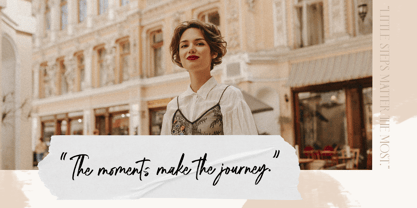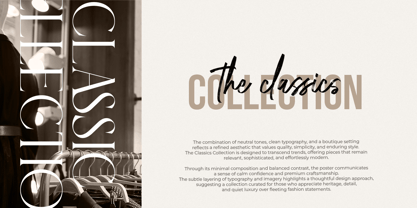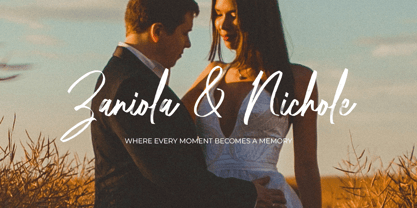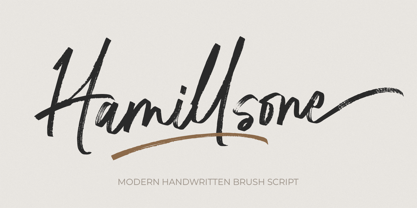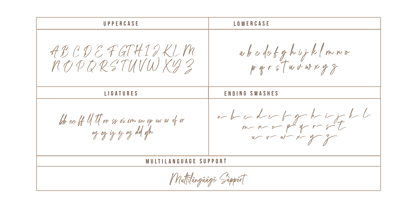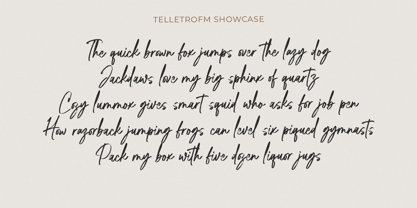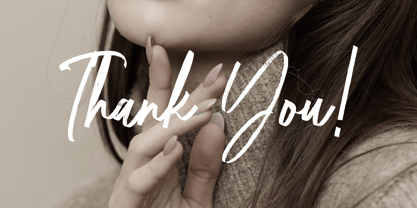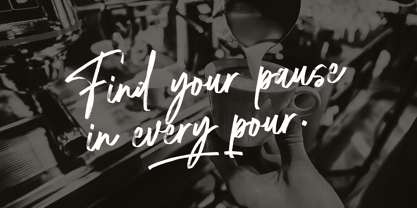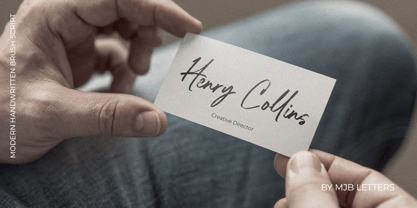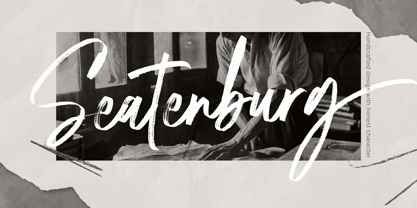
Hamillson
by MJB Letters
The Hamillson Font Family was designed by Muhammad Mujibulloh and published by MJB Letters. Hamillson contains 1 styles. More about this family
Hamillson is a modern handwritten brush script font with bold strokes, natural flow, and expressive handwritten character. Inspired by authentic brush lettering, this font delivers a warm, organic feel while staying clean and readable. Designed for versatility, Hamillson is perfect for logos, branding, packaging, apparel, and social media designs. With stylish ligatures and elegant ending swashes, you can easily create dynamic and personalized typography for both digital and print projects. Whether you’re working on branding projects, lifestyle visuals, or creative quotes, Hamillson brings a handcrafted yet professional touch to your designs. Perfect for: Logos & brand identity Packaging & product design Apparel & merchandise Social media & digital content Quotes, posters & lifestyle visuals Features: Uppercase & lowercase letters Stylish ligatures Elegant ending swashes Numerals & punctuation Multilingual support Add warmth, character, and confident style to your designs with Hamillson — a modern handwritten brush script font made to stand out.
Designers: Muhammad Mujibulloh
Foundry: MJB Letters